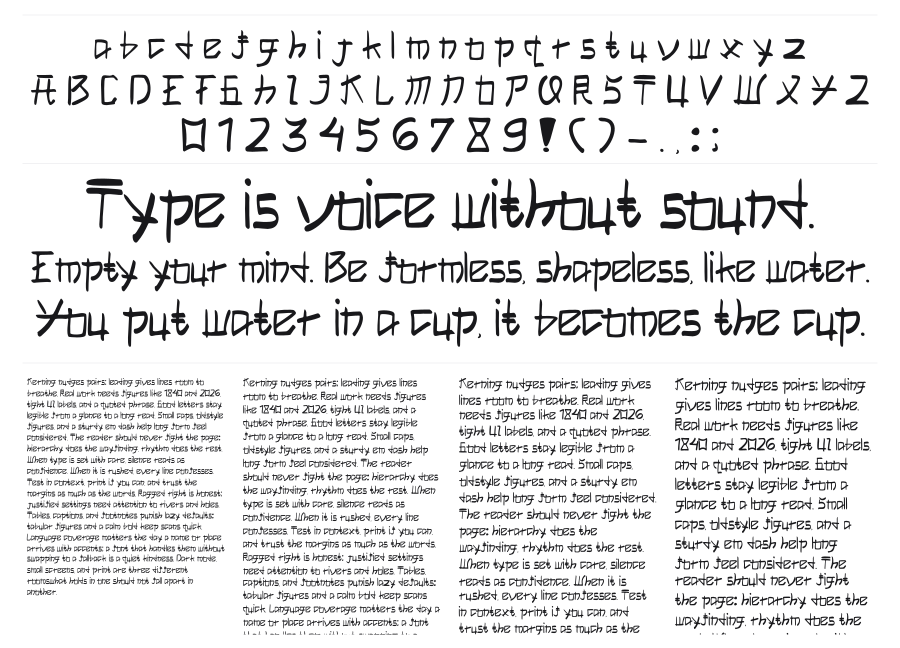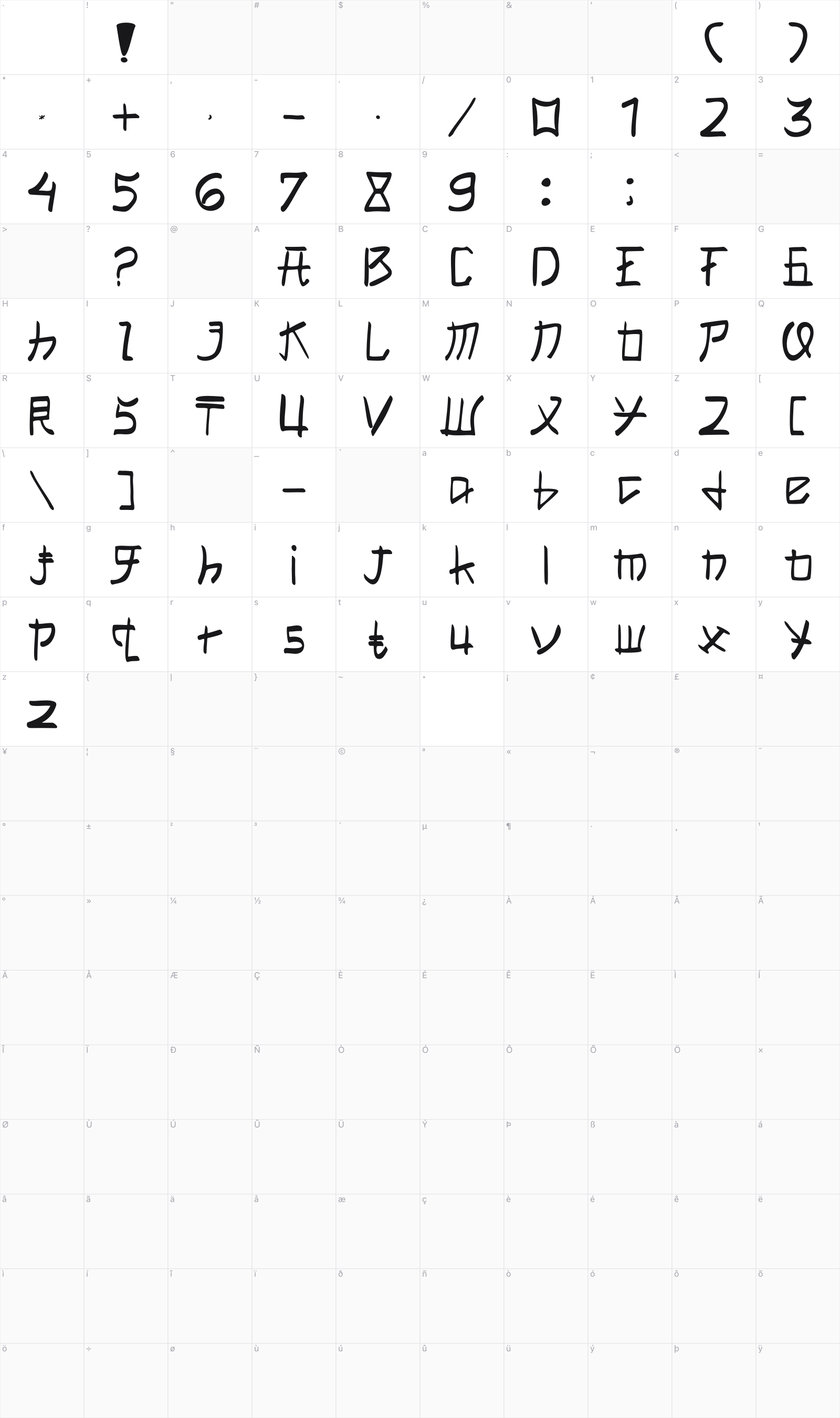
Takoyaki
by Ditya Ananto
Takoyaki is a bold, rough-edged handwritten face from Ditya Ananto with the loose energy of a thick marker wielded quickly and confidently. The letterforms are irregular and slightly off-balance, carrying a Japanese-inspired casualness that feels more street market signage than calligraphy. It's a quirky headline face with real personality, best used for posters, packaging, or branding where you want something that feels spontaneous and a little rough around the edges.